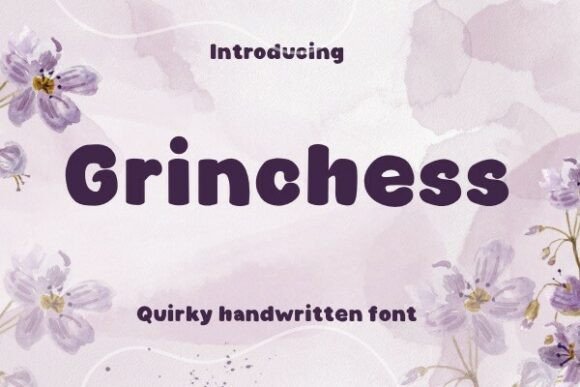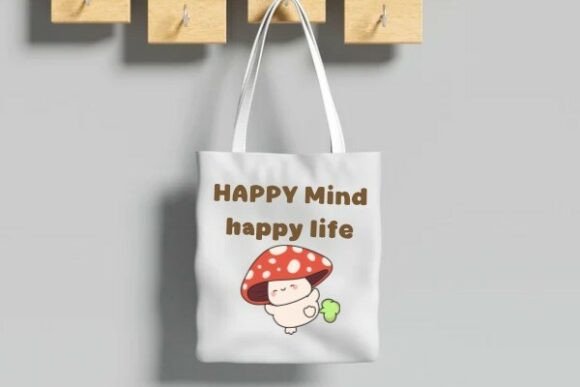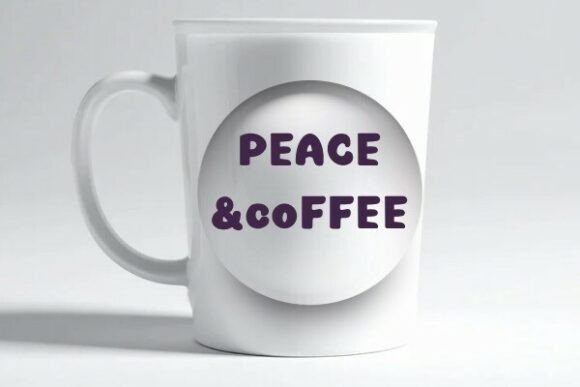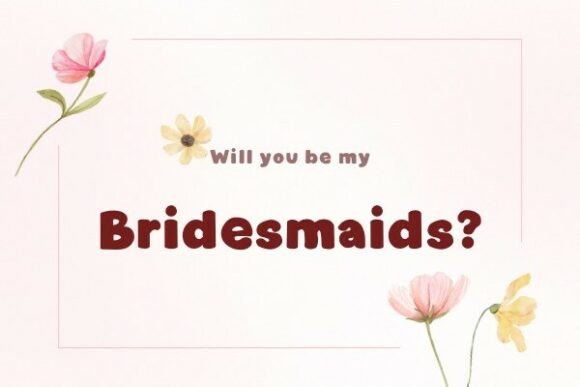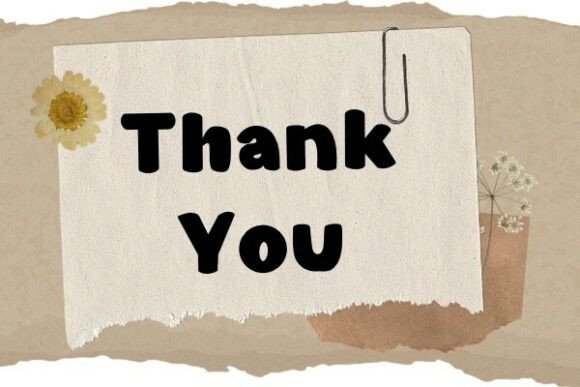
Unlock Your Creative Potential with the Grinchess Font
Have you ever stared at a blank canvas, feeling the urge to bring your imagination to life? That’s exactly what happened to me the other day, as I sat down to design a custom birthday card for a dear friend. I wanted to convey the perfect balance of love, humor, and whimsy – but the words just wouldn’t flow. That’s when I stumbled upon the Grinchess Font, a simple yet strikingly elegant handwritten font that instantly breathed new life into my design.
The Grinchess Font is more than just a typography tool – it’s a key to unlocking an elevated level of creativity and design distinction. Its versatility makes it perfect for a wide range of applications, from custom t-shirts and mugs to greeting cards and invitations. Whether you’re a seasoned designer or just starting out, the Grinchess Font is an invaluable asset that will help you stand out from the crowd and convey a unique, individualistic demeanor.
Grinchess Font Key Features
- Font Size: The font comes in a single size, making it easy to integrate into various designs. The font size is 48 points.
- Resolution: Grinchess Font is designed for high-resolution displays, with a resolution of 300 DPI (dots per inch), ensuring crisp and clear text rendering.
- Unique Characteristics: The Grinchess Font features a unique, hand-drawn design with a mix of bold and playful lines, giving it a distinctive and eye-catching look.
- Character Set: The font includes a comprehensive character set, including uppercase and lowercase letters, numerals, punctuation marks, and special characters, making it suitable for a wide range of applications.
Designer Review: Grinchess Font
Overall, I think the Grinchess Font is a unique and intriguing choice for designers. It has its strengths and weaknesses, which I’ll outline below.
- Unique character set: The Grinchess Font’s character set is quite extensive and includes a wide range of symbols, including emojis, which can be useful for designers who want to add a touch of personality to their projects.
- Customizable: The font can be customized to some extent, allowing designers to adjust its appearance to suit their needs.
- Legibility issues: The font can be difficult to read, especially at smaller font sizes. This may be a concern for designers who need to use the font for body text.
Overall impression
While the Grinchess Font has its strengths, its limitations may make it less suitable for certain design projects. However, for designers who want to add a touch of whimsy and personality to their work, the Grinchess Font could be a great choice. Just be aware of its limitations and use it judiciously.
The Grinchess Font is ideal for:
- Designing whimsical and playful graphics
- Creating unique and eye-catching headings and titles
- Adding a touch of elegance to your text-based designs